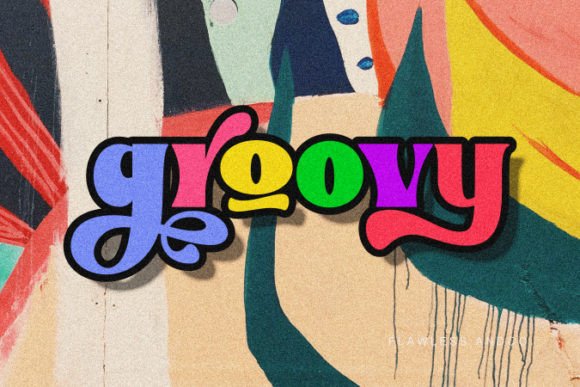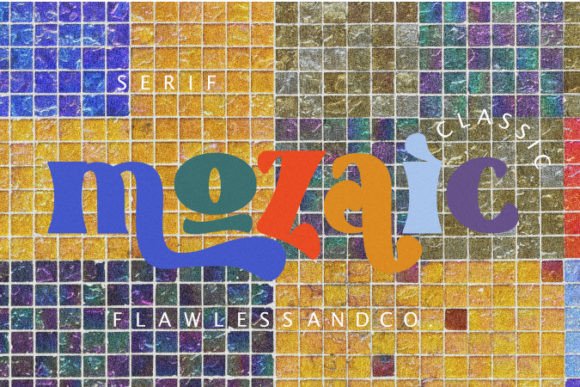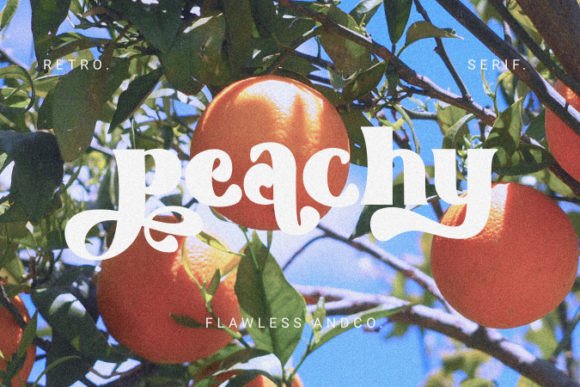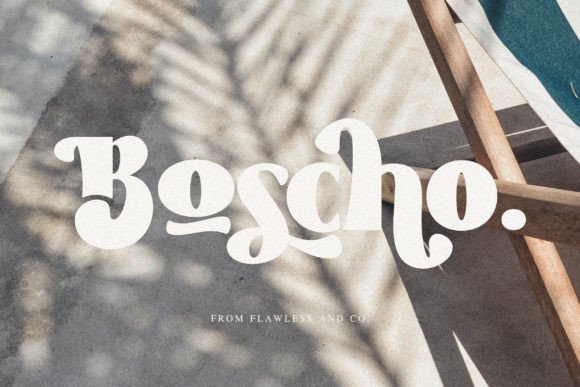
Introduction to Boscho Font
Boscho is a cool and modern display font.
With a fun groovy vibe, this font is perfect for a wide range of design ideas Add it confidently to your projects and you will be amazed by the outcome generated.